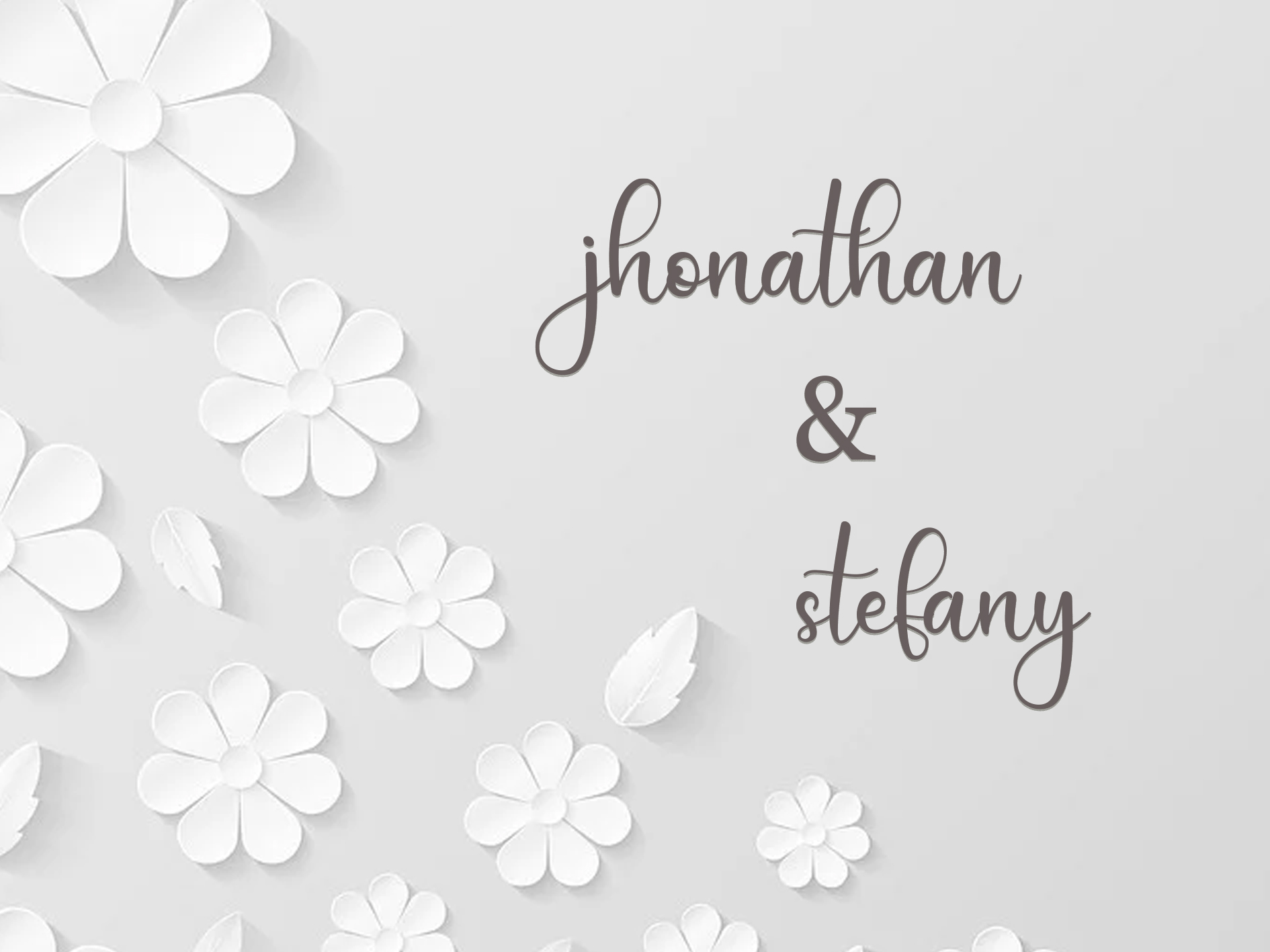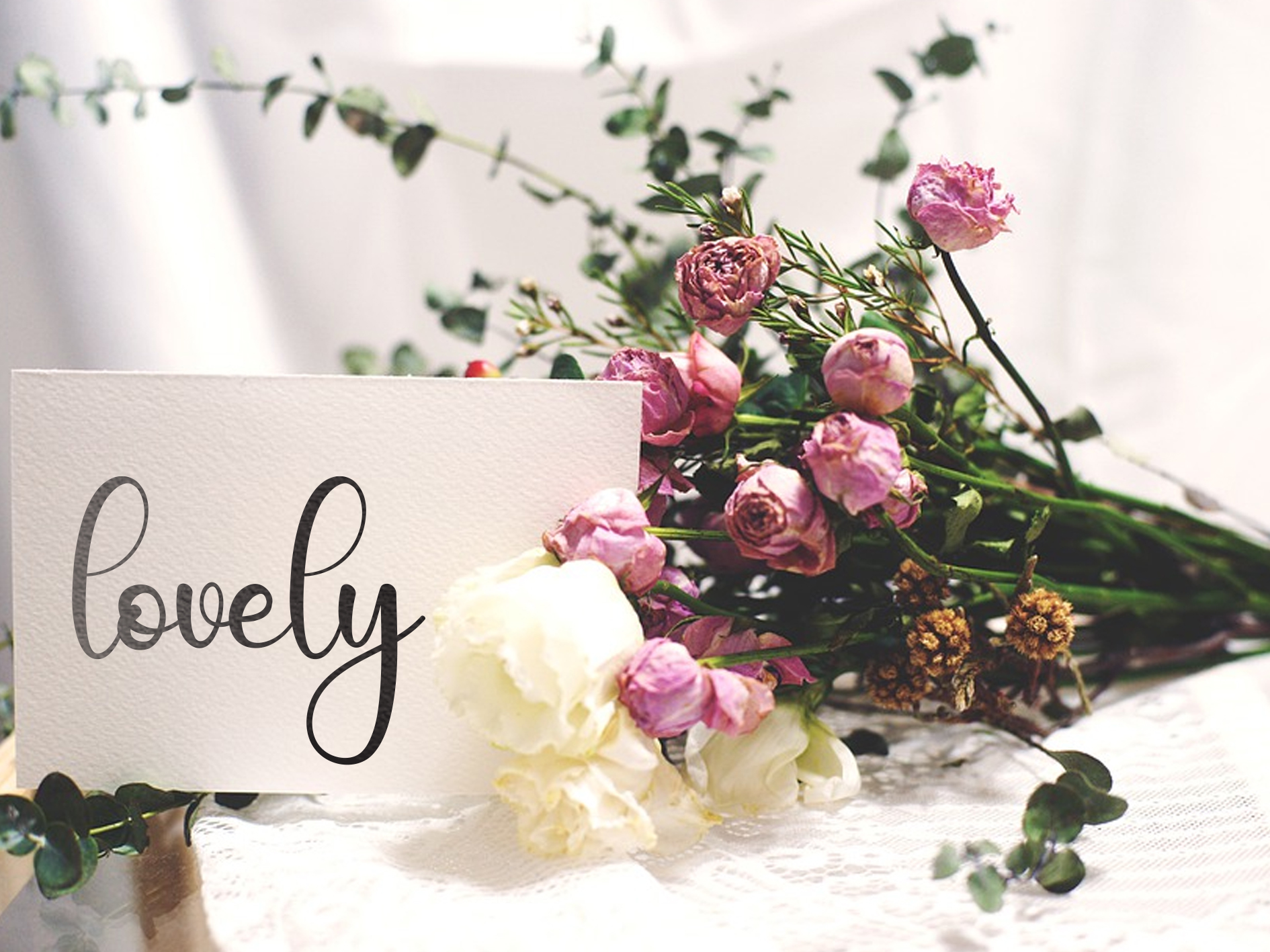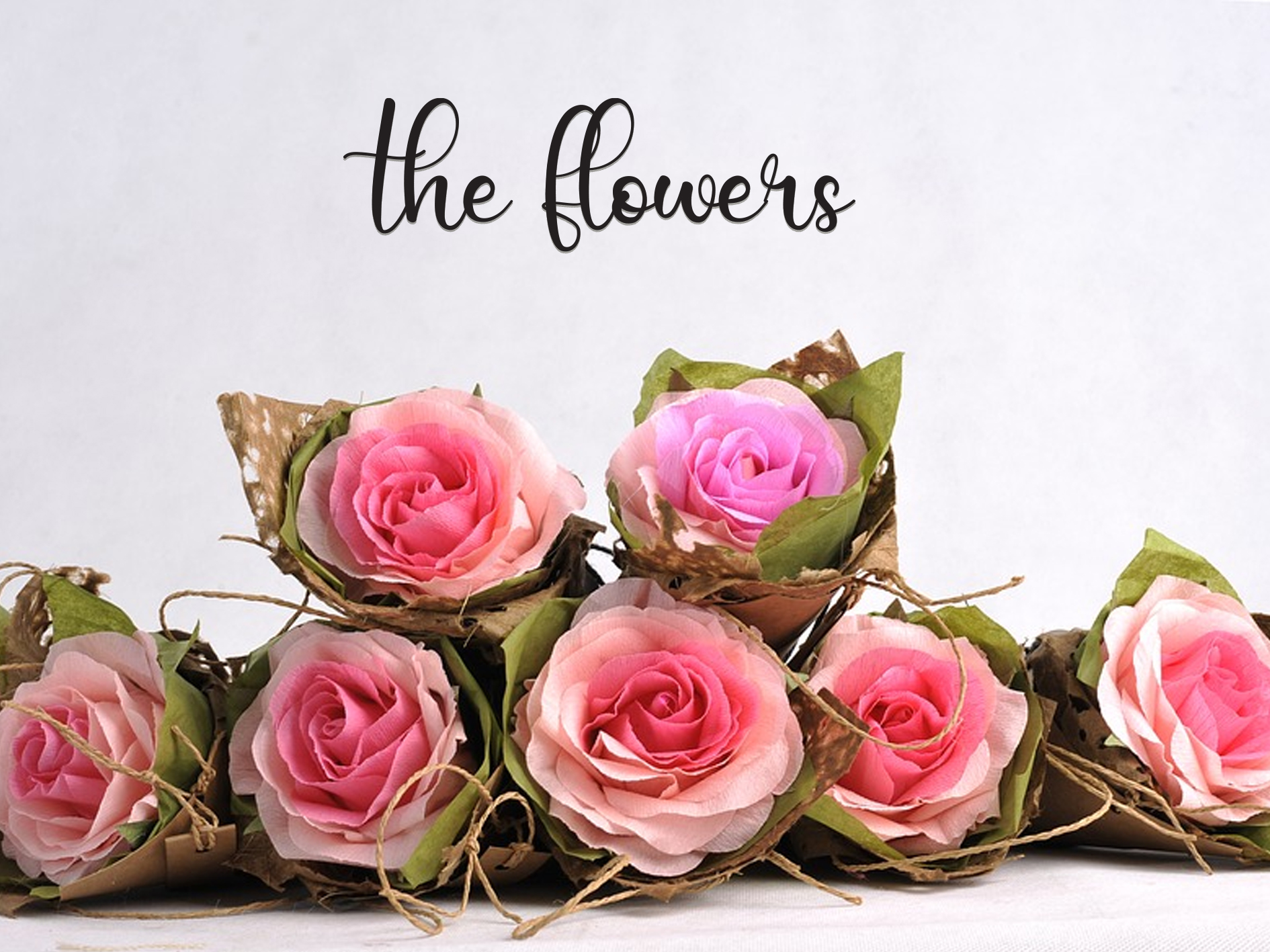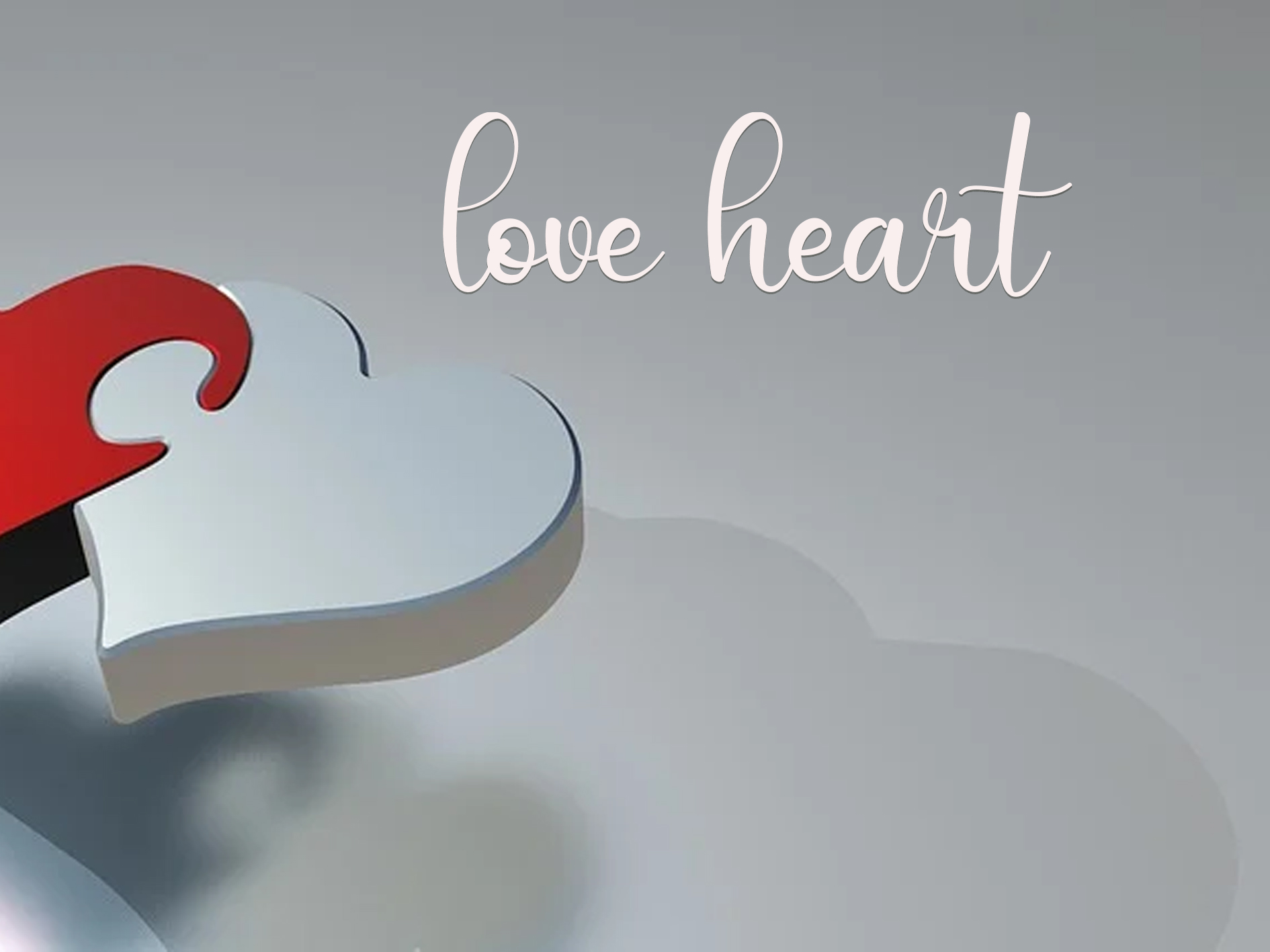
Wedding Calligraphy Font
It’s a delicate handwritten font that is carefully crafted to produce cool and unique designs. This font can be used to write letters, invitations, food products and more.
This is a beautiful and unique handwritten font, with grooves crafted to produce beautiful lettering for use in a wide variety of products as desired. This product link; https://www.creativefabrica.com/product/wedding-74/ref/1679118/